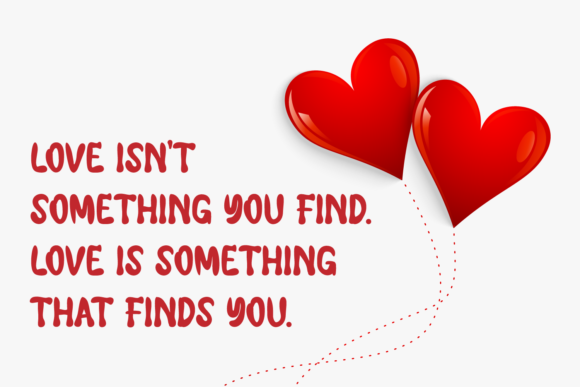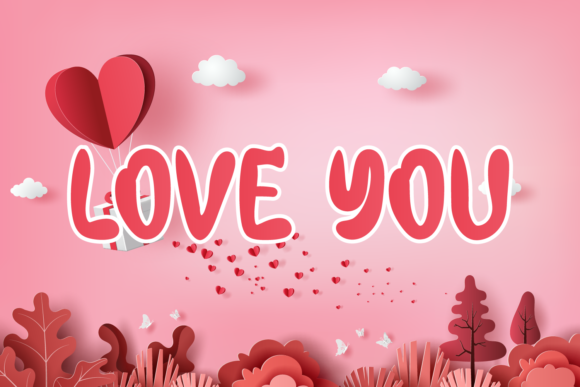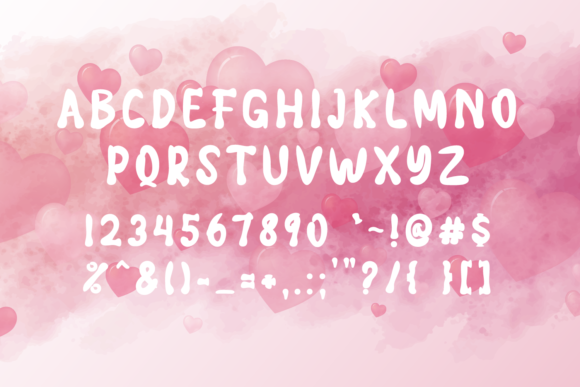
Introducing Call You Font: Elevate Your Designs with a Trendy and Friendly Touch
In the world of typography, fonts play a crucial role in conveying the tone and personality of a design. For designers and crafters looking to add a personal touch to their creative projects, Call You Font is an excellent choice. This paint-brushed display font is not only trendy and friendly but also incredibly versatile, making it perfect for a wide range of contexts.
The Unique Charm of Call You Font
Call You Font boasts a natural feel that sets it apart from more conventional fonts. Its paint-brushed texture gives it a handcrafted look, reminiscent of traditional sign-painting or calligraphy. This unique charm makes it an ideal choice for designers who want to add a human touch to their work. Whether you’re creating branding materials, posters, or digital content, Call You Font can help you connect with your audience on a more personal level.
One of the standout features of Call You Font is its versatility. Its natural, friendly aesthetic makes it suitable for a variety of design projects, including:
• Branding and Logos: Use Call You Font to create a memorable logo or brand identity that reflects your company’s personality.
• Posters and Flyers: Add a touch of personality to your promotional materials with this eye-catching font.
• Digital Content: Enhance your social media posts, blog headers, and website content with a friendly, approachable tone.
• Packaging and Labels: Stand out on store shelves with custom packaging that features Call You Font.
• Invitations and Stationery: Create beautiful, one-of-a-kind invitations and stationery that showcase your personal style.
Why Choose Call You Font?
With so many fonts available, why choose Call You Font for your design projects? Here are a few compelling reasons:
• Unique Aesthetic: Call You Font offers a distinctive look that will set your designs apart from the crowd.
• Easy to Read: Despite its artistic texture, Call You Font remains highly legible, making it perfect for both headlines and body text.
• Highly Versatile: Use it across various design projects, from digital content to print materials.
• Time-Saving: With Call You Font, you can achieve a professional, hand-crafted look without spending hours on custom illustrations.
Tips for Using Call You Font Effectively
To get the most out of Call You Font, consider the following tips:
• Pair it with Contrasting Fonts: Combine Call You Font with simpler fonts to create visual interest and hierarchy in your designs.
• Experiment with Colors: Take advantage of the font’s paint-brushed texture by experimenting with different colors and gradients.
• Use it Sparingly: While Call You Font is versatile, it’s best used as an accent font. Use it for headlines or key messages to draw attention.
Call You Font is a trendy and friendly paint-brushed display font that can elevate your designs with its unique charm and versatility. Whether you’re a designer, crafter, or DIY enthusiast, this font is sure to become a valuable addition to your creative toolkit. With its natural feel, readability, and wide range of applications, Call You Font is the perfect choice for anyone looking to add a personal touch to their projects. So why wait? Download Call You Font today and watch your designs stand out like never before!